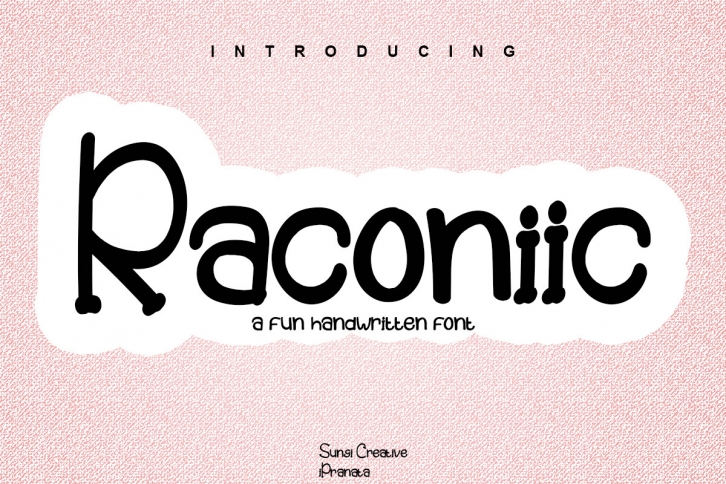
Raconiic is a cool display that will enhance the beauty of each of your projects.
It is perfect for branding projects, logos, wedding designs, social media posts, advertisements, product packaging, product design, labels, photography, watermarks, invitations, stationery, and other projects that require a lovely taste.